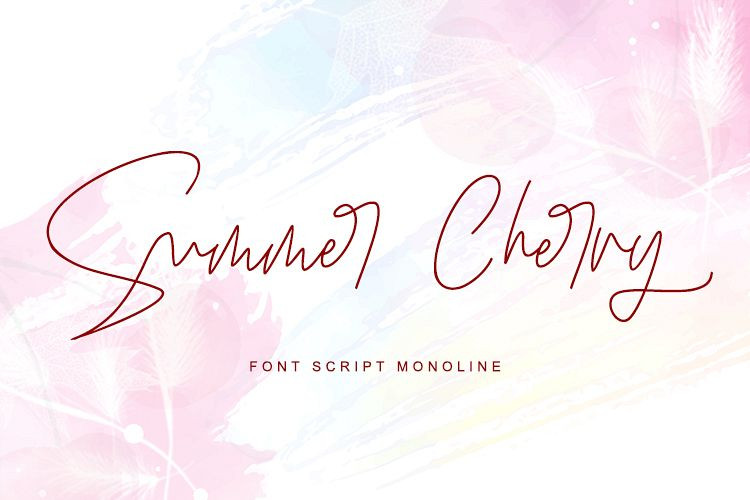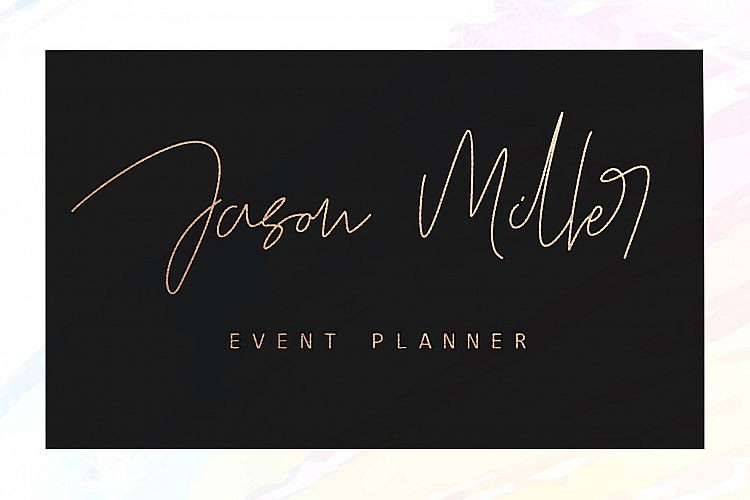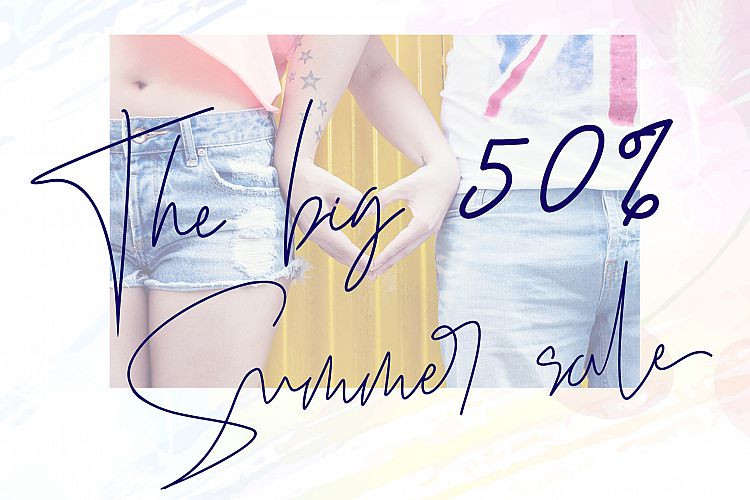
Summer Cherry Script Font
introducing a new beautiful calligraphy font, Summer Cherry! Created for summer.
Summer Cherry  is perfect for beautyfull logo,  elegant logos,   upscale packaging, wedding stationery, websites, and any other projects requiring a handwritten and luxurious touch. A wide range of swashes (a-z) and alternates (A-Z, a-z) are included so that you can give your logo or name a custom, hand-calligraphy look.
Moreover, Summer Cherry  font was created to look as close to a natural handwritten script as possible by including  64 ligatures. With built in Opentype features, this script comes to life as if you are writing it yourself. You can see it in the picture shown.